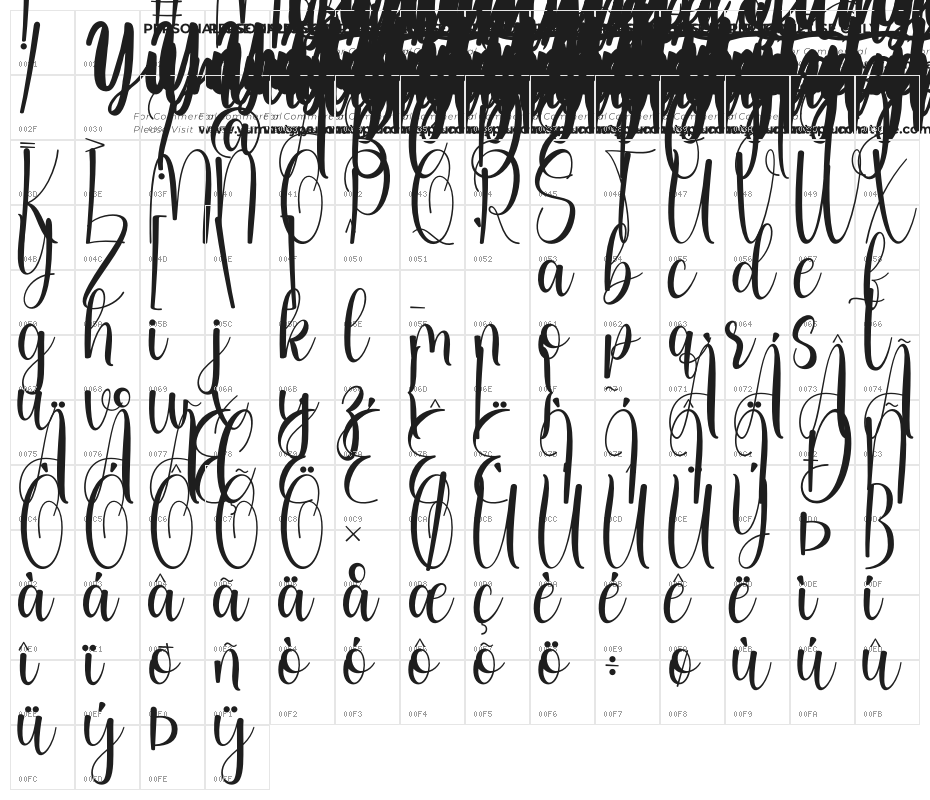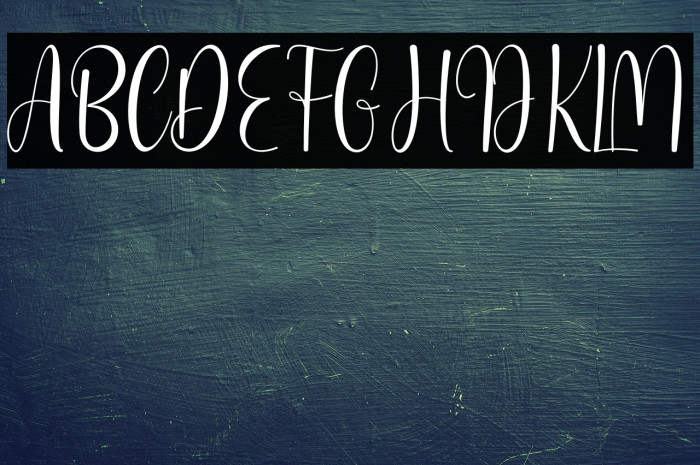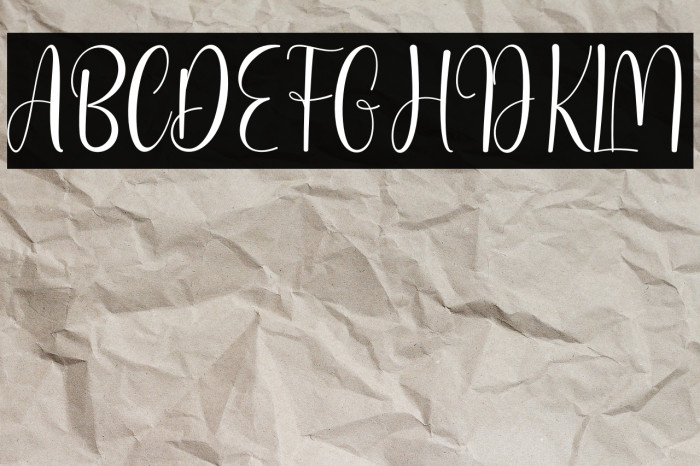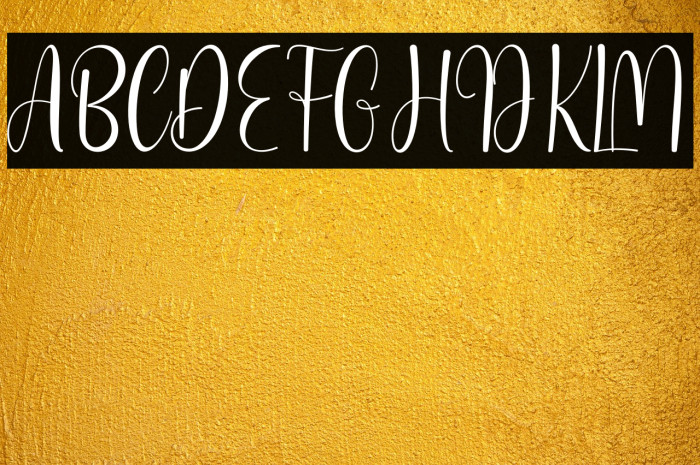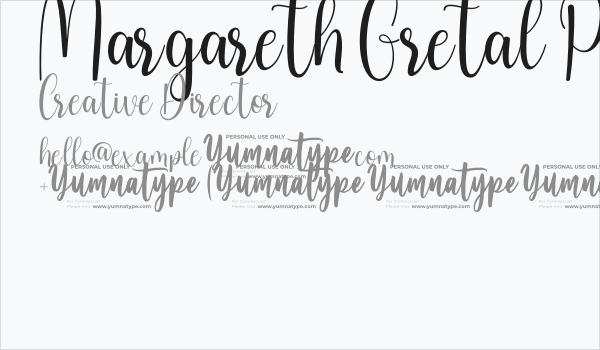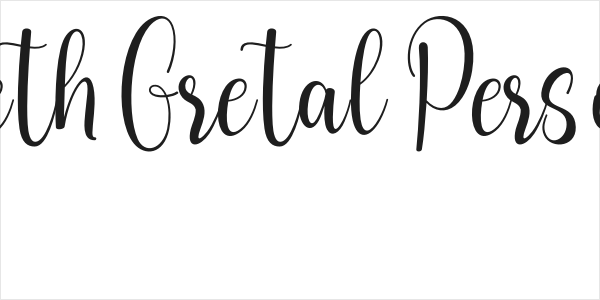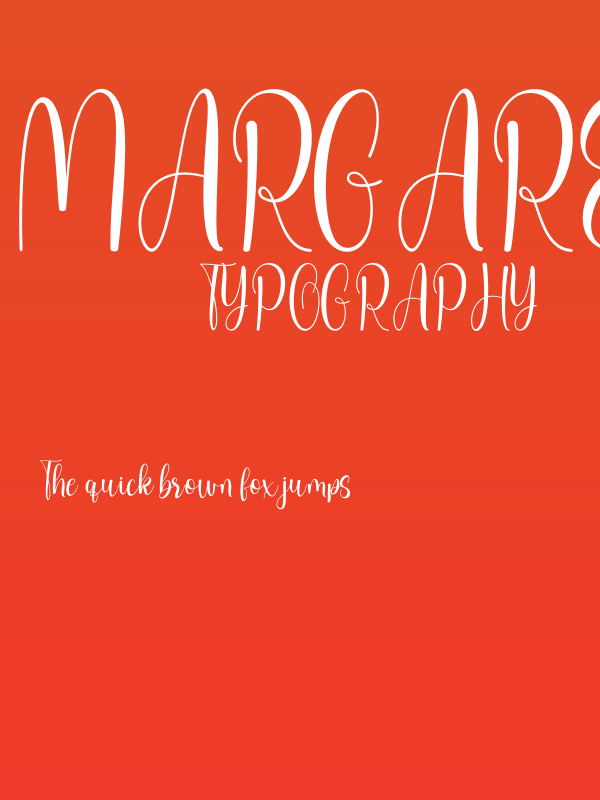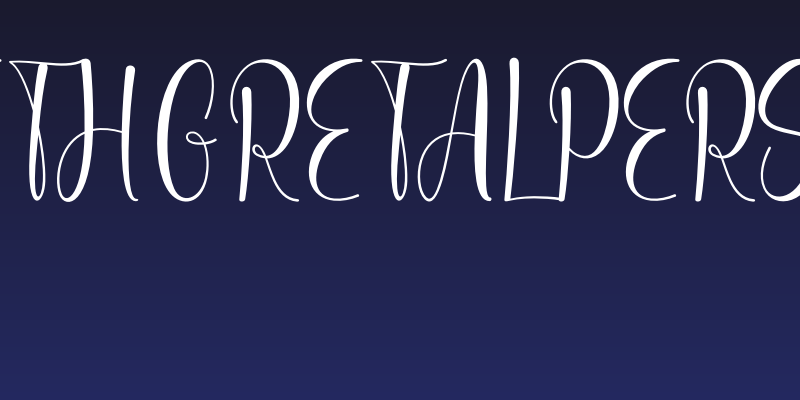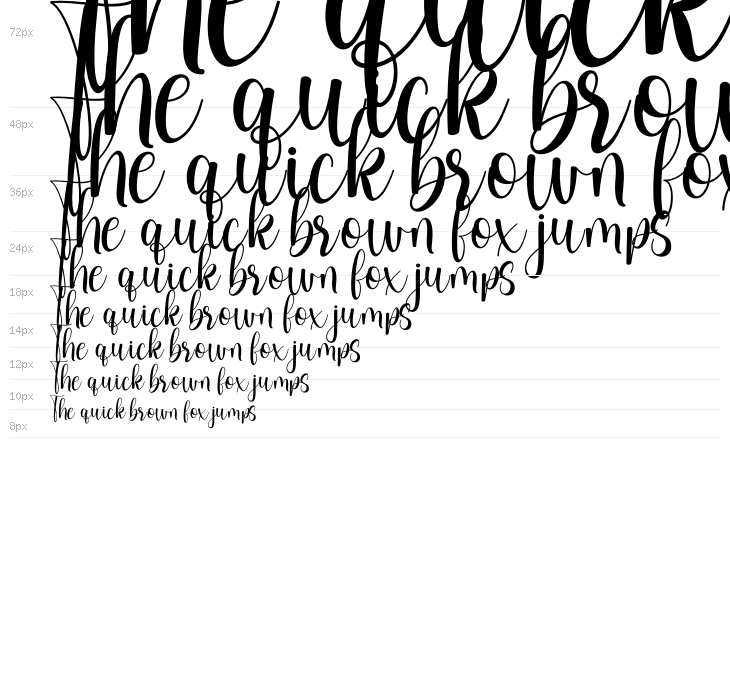
Margareth Gretal PersonaL Use Font
Margareth Gretal PersonaL Use Description
This elegant script font features a flowing, handwritten style with a modern twist. The uppercase letters are tall and slender, with graceful loops and curves that add a touch of sophistication. The lowercase letters maintain a consistent style, with smooth connections and a slightly playful character. The font's overall appearance is both stylish and approachable, making it suitable for a variety of creative projects. The numerals and special characters are designed to complement the letters, maintaining the same fluid and artistic quality.